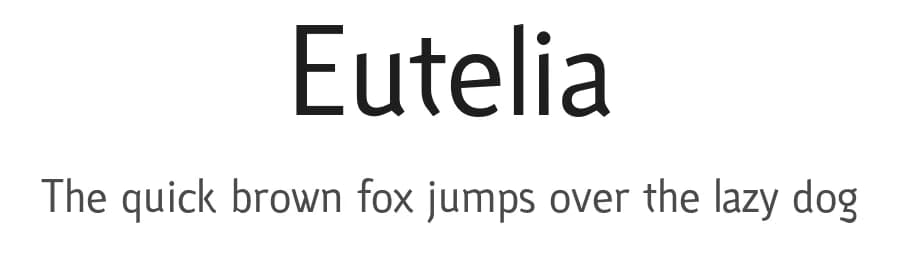
About Eutelia Font
Eutelia Font is a versatile sans-serif font that works for both headings and body text. Pair it with a contrasting serif or slab serif font to add visual interest and a clear distinction between titles and body copy.
Eutelia Font
Eutelia Font is a sans serif typeface by Ernesto Antón, ideal for logos, invitations, branding, and creative projects.